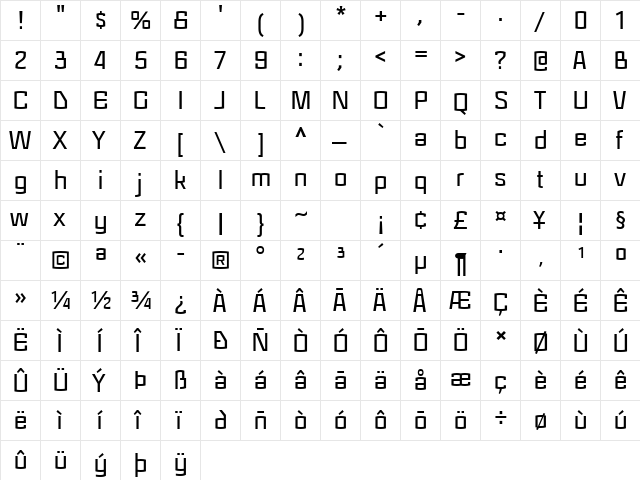
Regra Regular
Design Context for Regra Typeface
Regra offers clean, dependable letterforms without strong stylistic allegiance, making it a practical choice for designers who need flexibility.